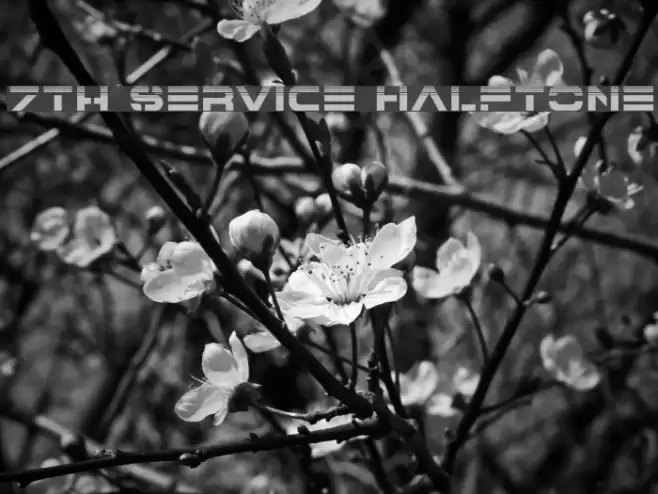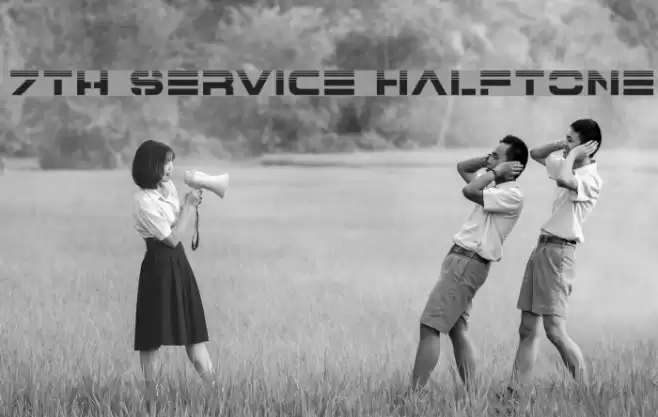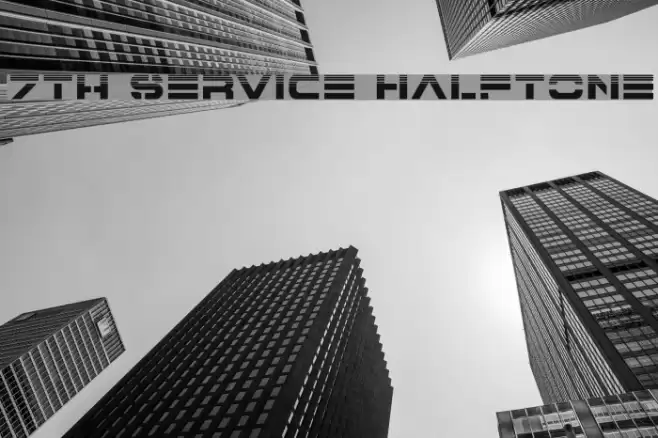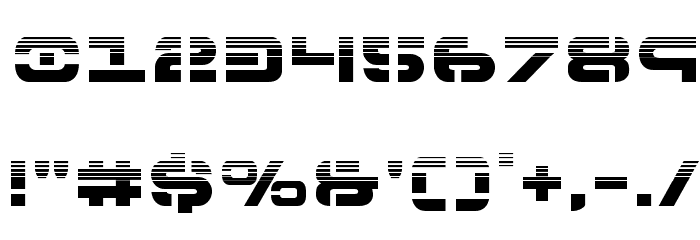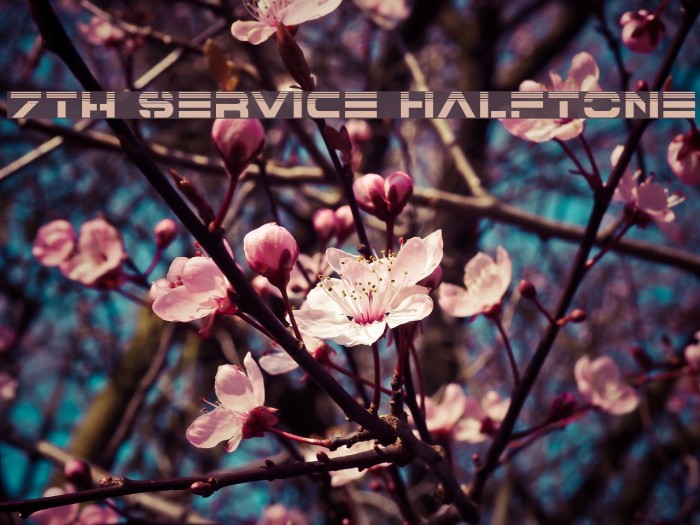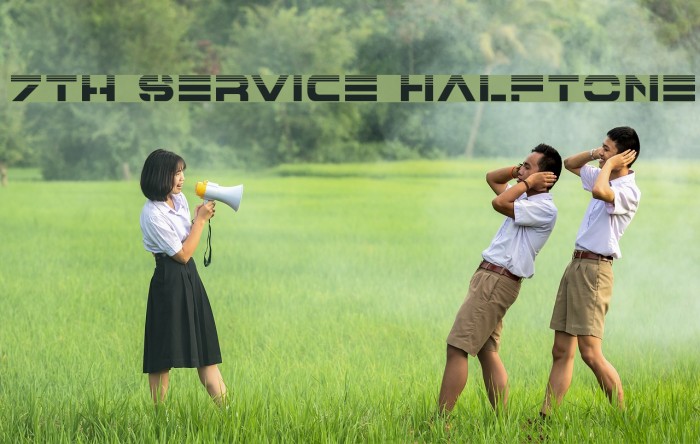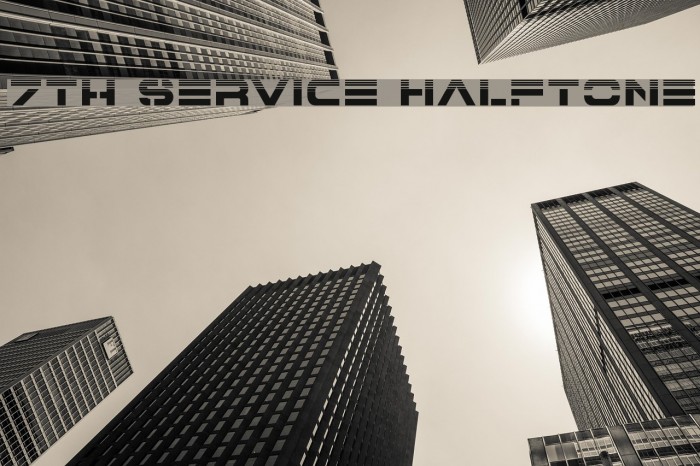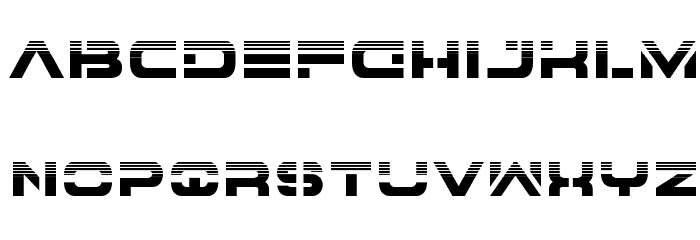
7th Service Halftone Font
7th Service Halftone Description
This font features a bold, futuristic design with a halftone effect that creates a sense of movement and depth. The characters are constructed with a series of horizontal lines that vary in thickness, giving them a unique, digital appearance. The uppercase letters are particularly striking, with sharp angles and a geometric style that is both modern and eye-catching. The numbers and special characters maintain this aesthetic, ensuring consistency across all elements. This font is ideal for projects that require a strong, contemporary look.
A bold, futuristic font with a halftone effect and geometric style from Uncategorized fonts.
- Proposed Projects: Ideal for sci-fi themed designs, tech branding, video game titles, and modern posters.